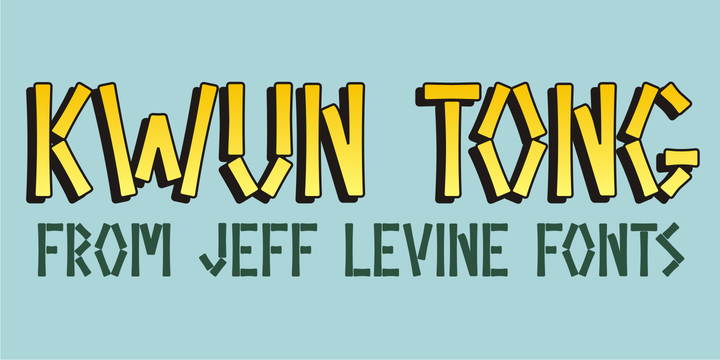
Kwun Tong JNL
by Jeff Levine
The Kwun Tong JNL Font Family was designed by Jeff Levine and published by Jeff Levine. Kwun Tong JNL contains 1 styles. More about this family
Loosely based on a hand lettered title found on vintage sheet music for the song "Hong Kong", the design for Kwun Tong JNL emulates the letters and numbers formed from pieces of bamboo stalk. Kwun Tong JNL is named for a locality in Hong Kong although (according to Wikipedia) "the Hong Kong Government is unitary and does not define cities and towns as subsidiary administrative units."